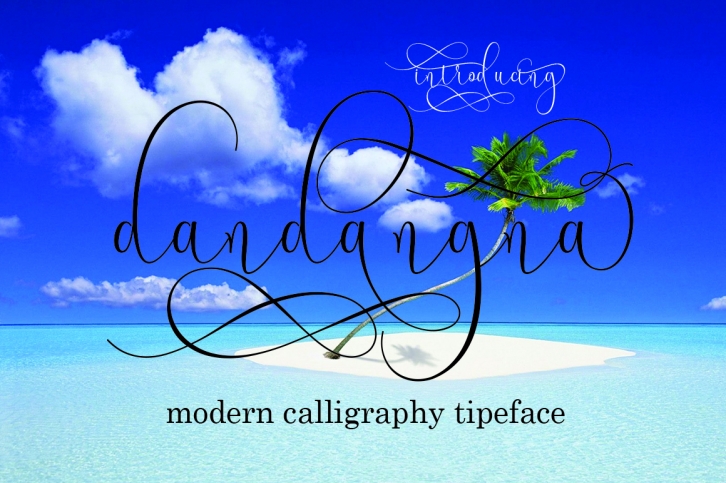
Dandangna is a stylish calligraphy font that has an elegant and classic feel; for use in various project types, this script is a great way to give some depth to your projects.